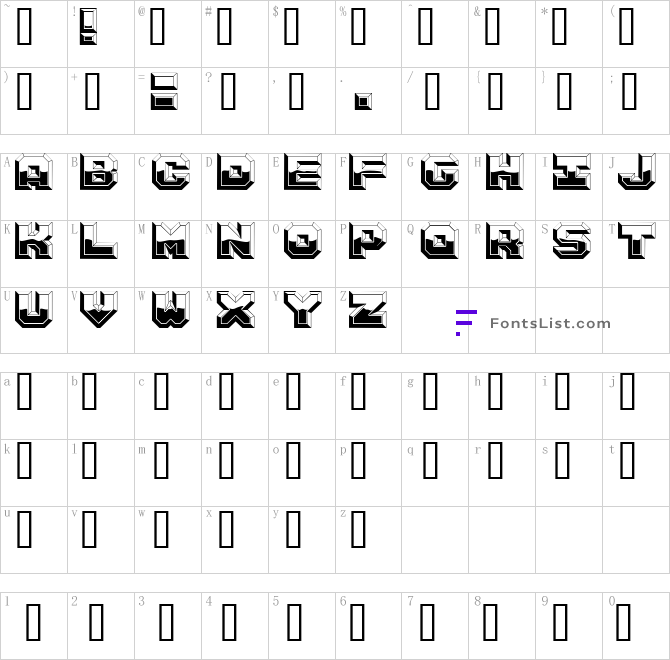
- Font Name:ArgentumShine
ArgentumShine.ttf is a very beautiful artistic font, ArgentumShine.ttf is widely used in the design and printing of various books and pictures,ArgentumShine.ttf has a strong visual impact,ArgentumShine.ttf is a commonly used font in newspapers, magazines and books, and is used in posters, e-commerce Poster design, store design, logo design, font design and other fields.ArgentumShine.